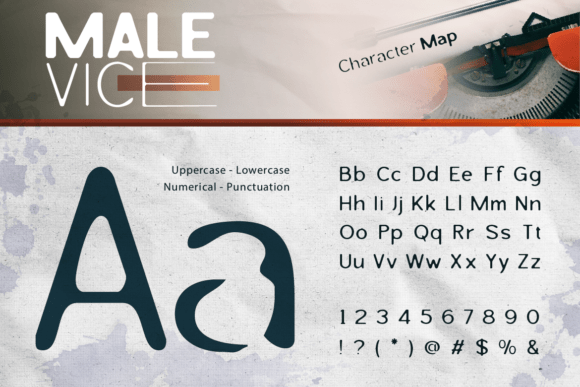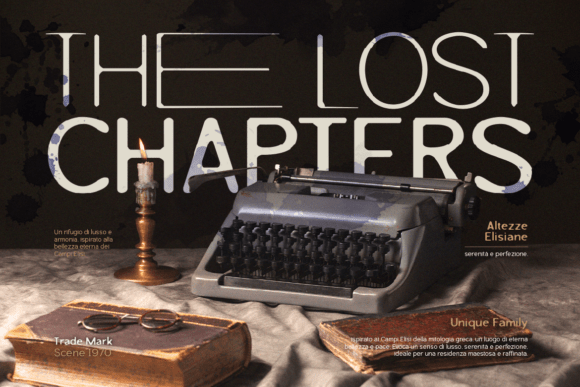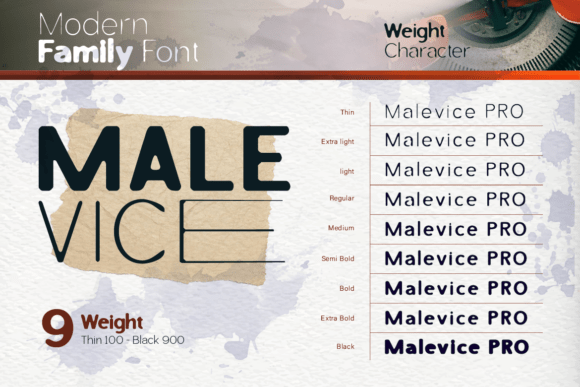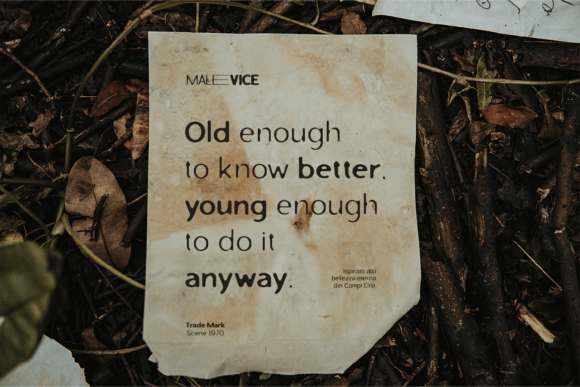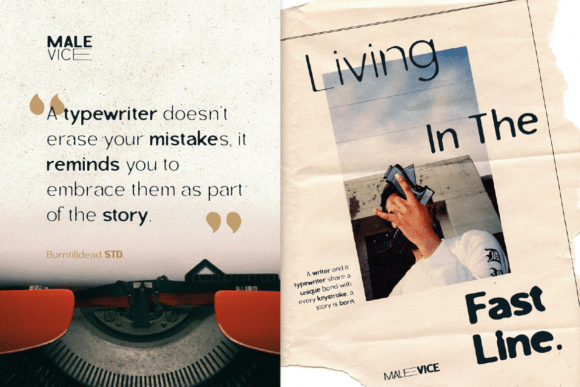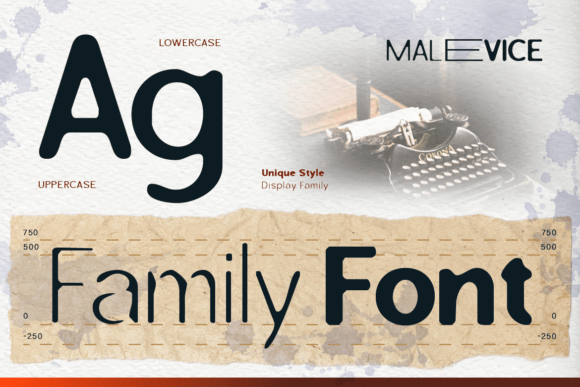
Introduction to Malevice Inkbleed Font Font
Fonts play a crucial role in design, and the Malevice Inkbleed Font font is a typeface that brings both character and versatility to any project. Whether you’re working on a branding project, a website, or a print design, the Malevice Inkbleed Font font offers a unique style that can elevate your work.
Introducing Malevice Inkbleed – a unique font with smooth, rounded edges and an eye-catching inkbleed effect.
With 9 different weights from Thin to Black, this font makes it easy to create bold and striking designs The ink bleed effect adds a vintage and classic touch while keeping it fresh and unique.
Key Features of Malevice Inkbleed Font Font
Why Choose Malevice Inkbleed Font Font?
The Malevice Inkbleed Font font is more than just a typeface – it’s a design tool that helps you communicate your message with style and clarity. Its unique character set and versatile design make it suitable for a wide range of applications, from elegant invitations to bold headlines.
With its carefully crafted letterforms and balanced proportions, the Malevice Inkbleed Font font ensures readability and visual appeal across all mediums.
What makes Malevice Inkbleed Font font special?
The Malevice Inkbleed Font font stands out with its unique design, exceptional readability, and versatility across various design applications.